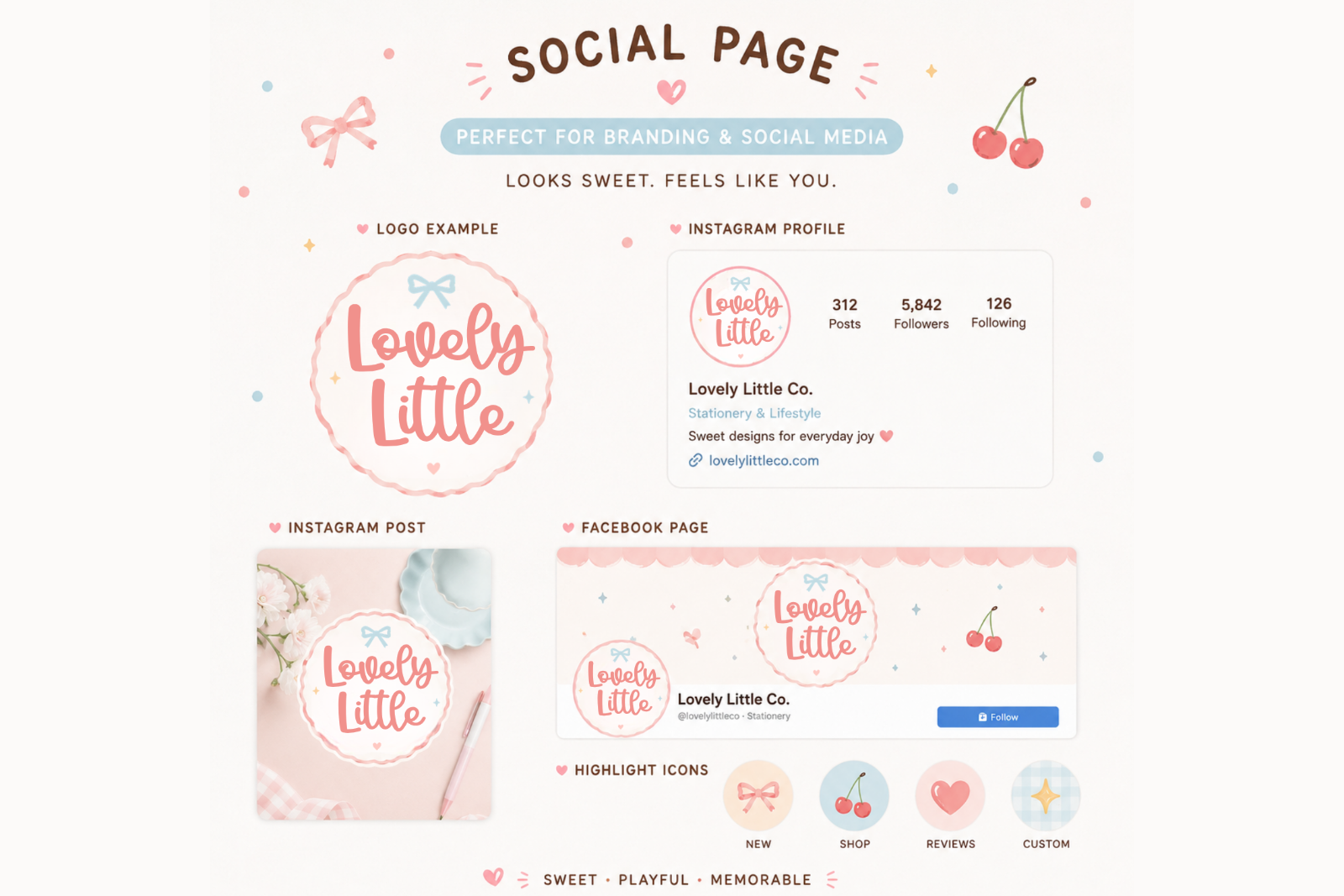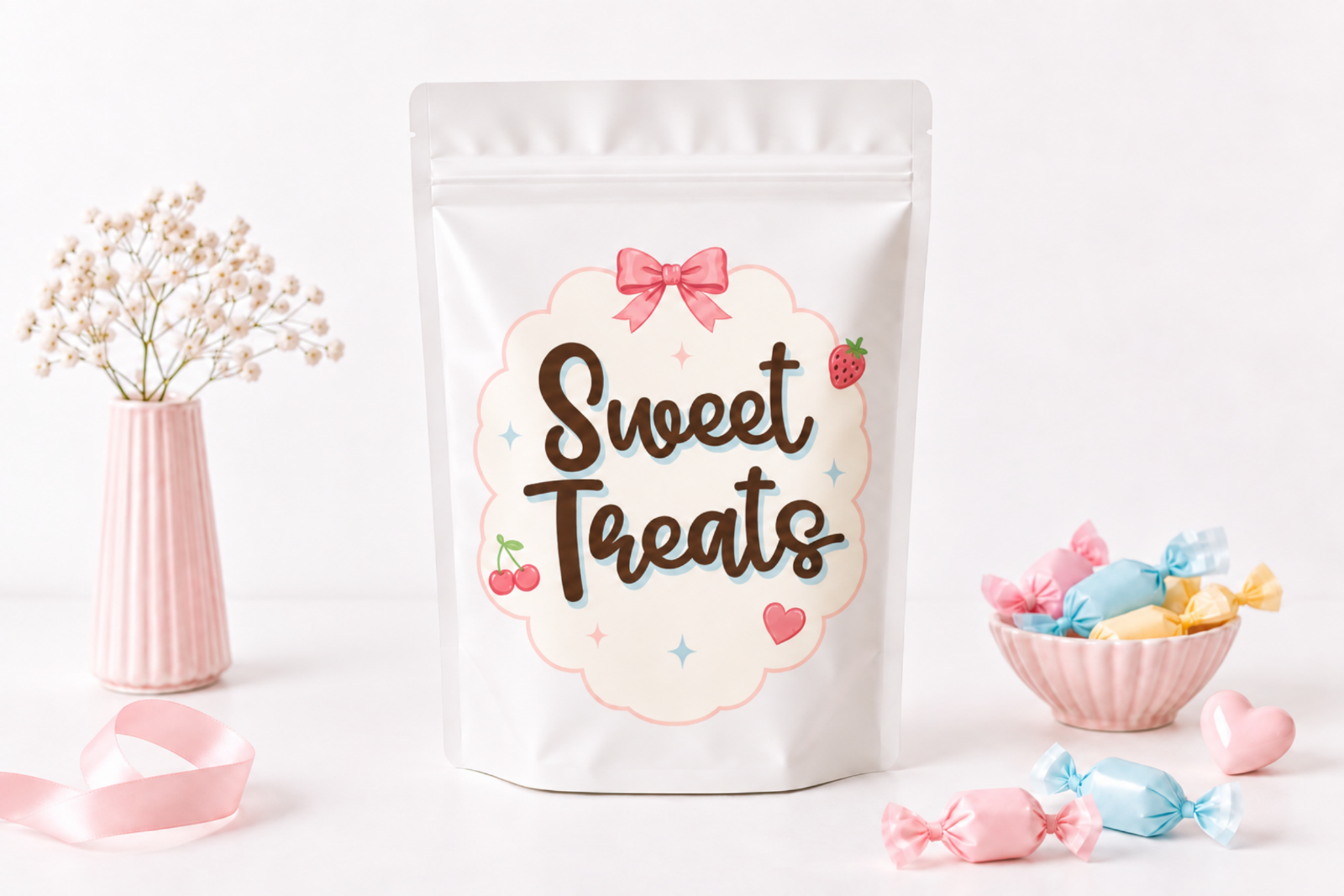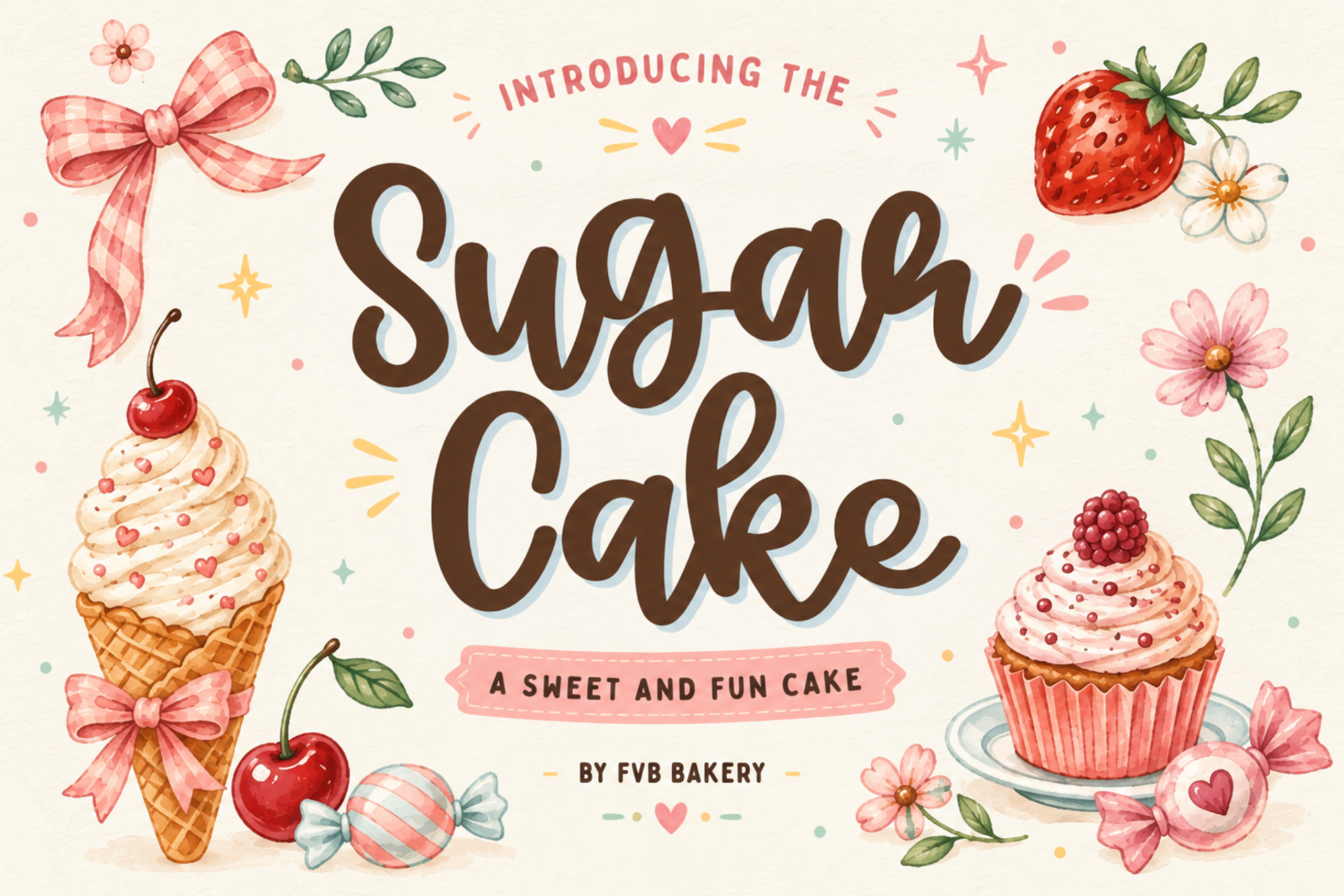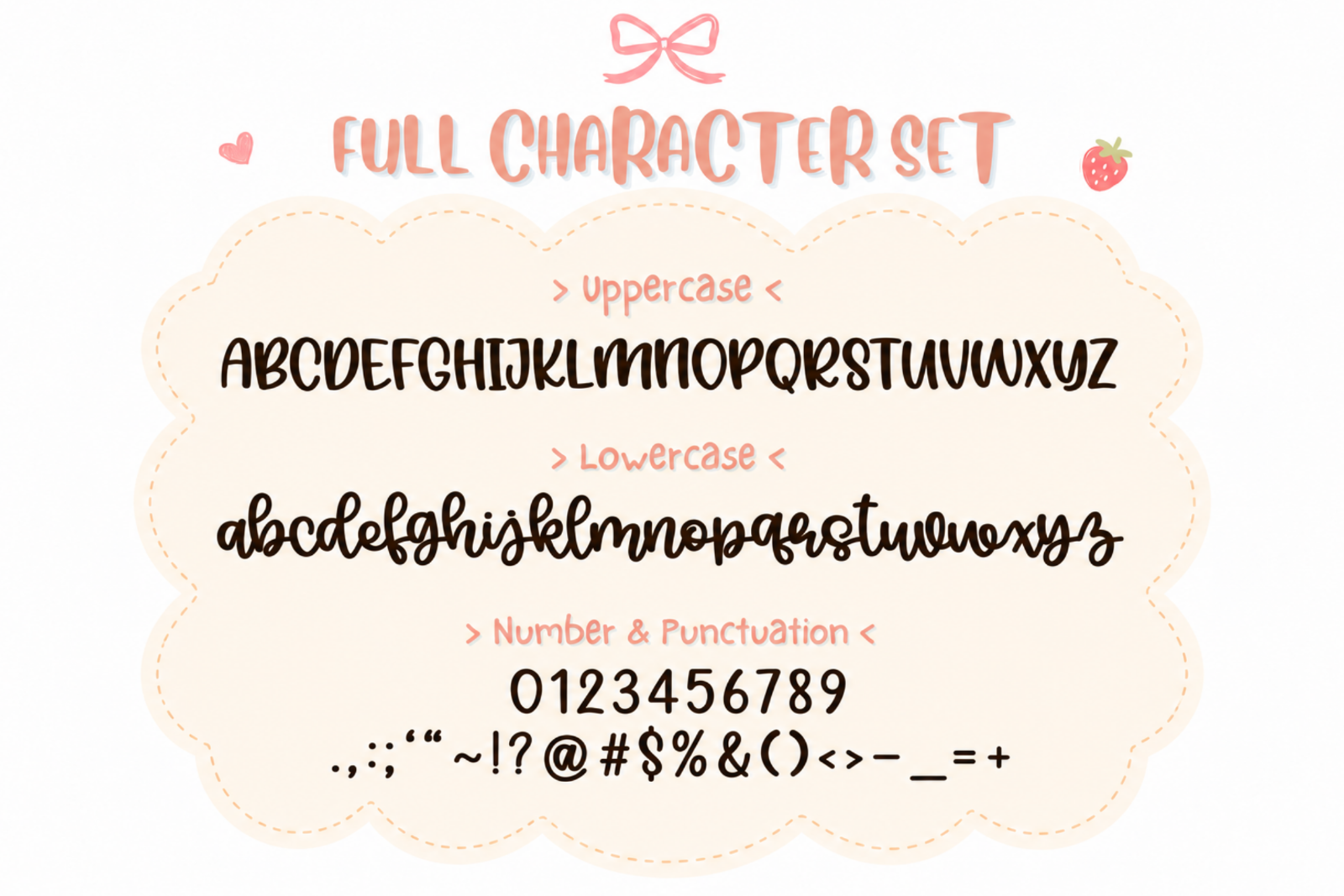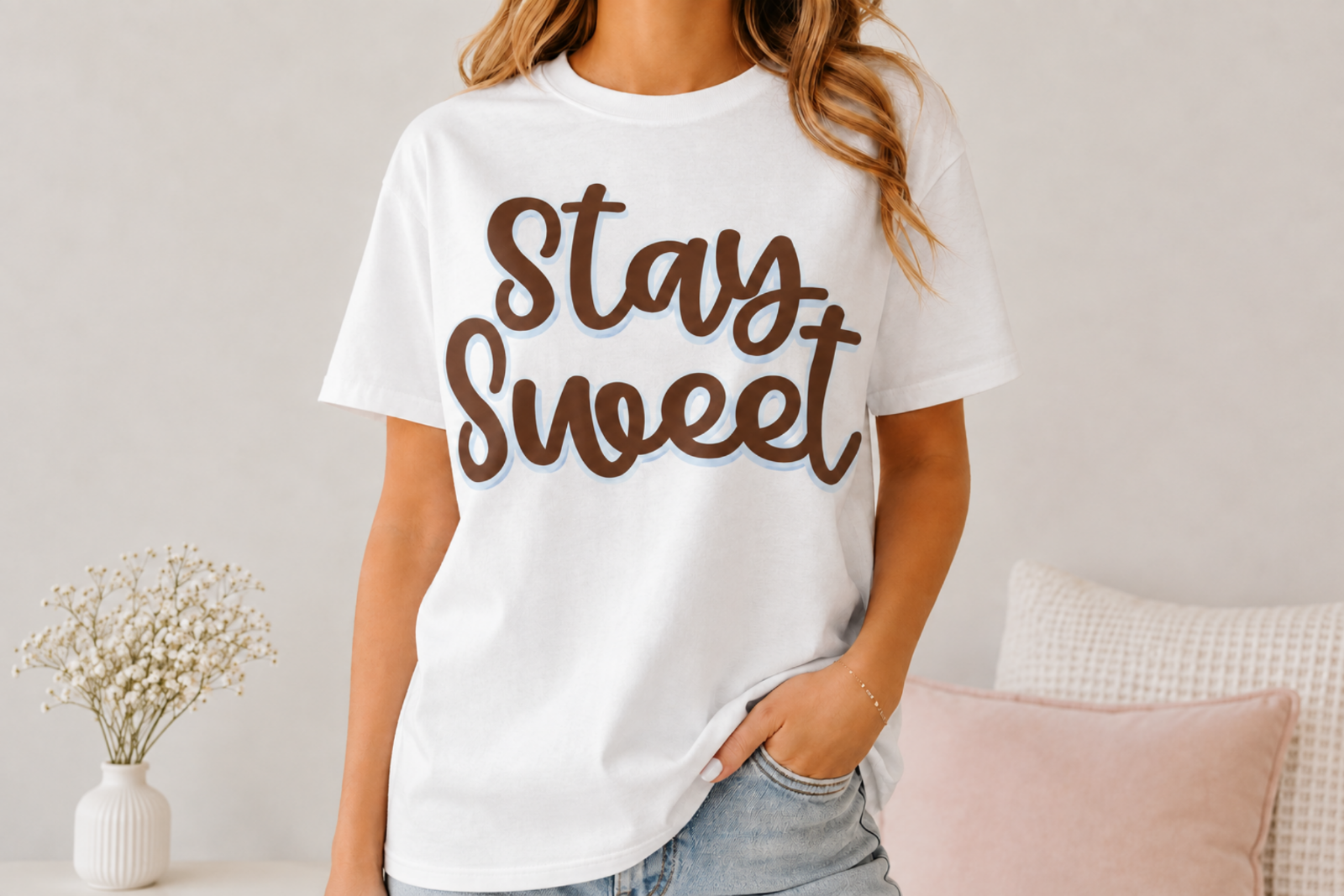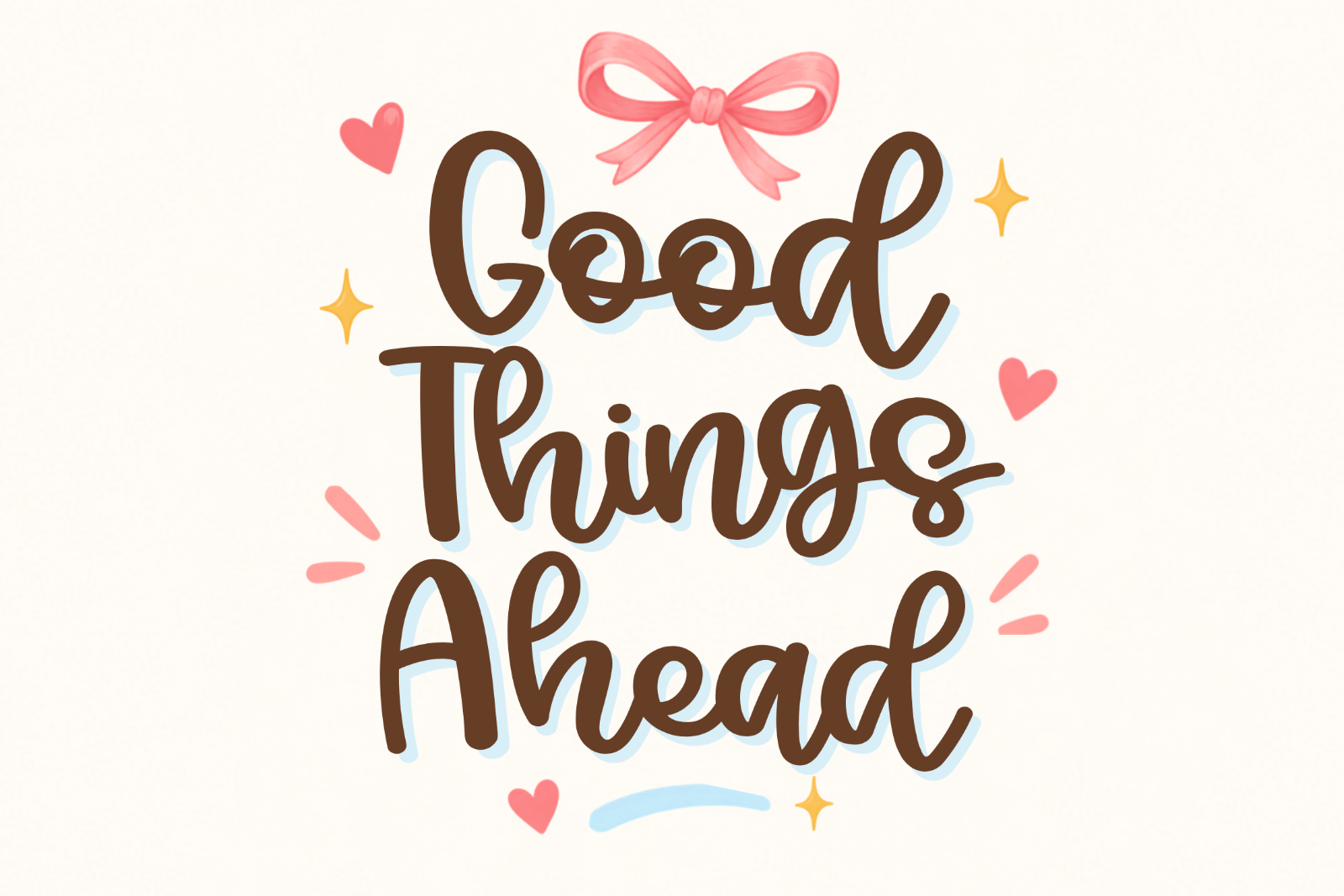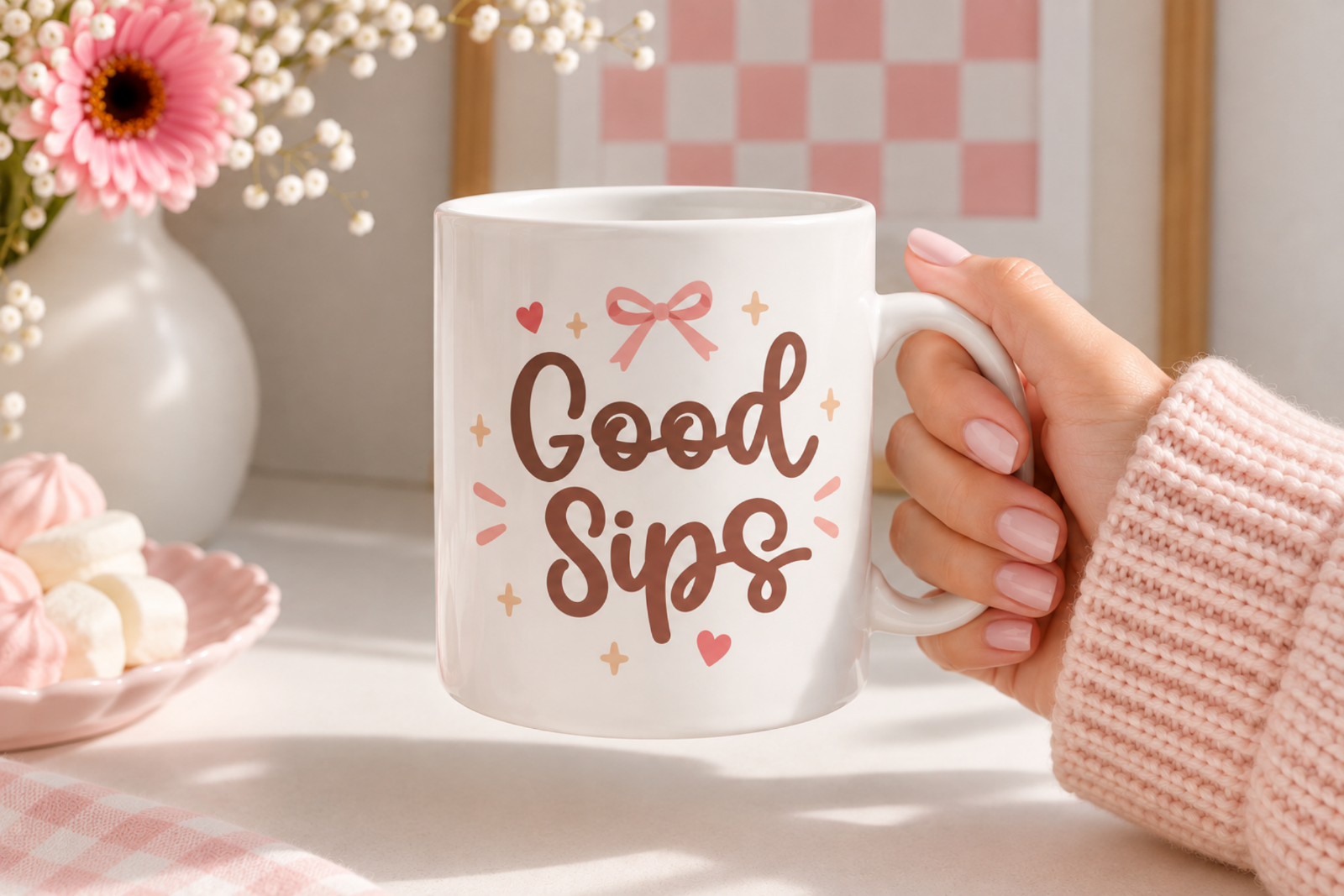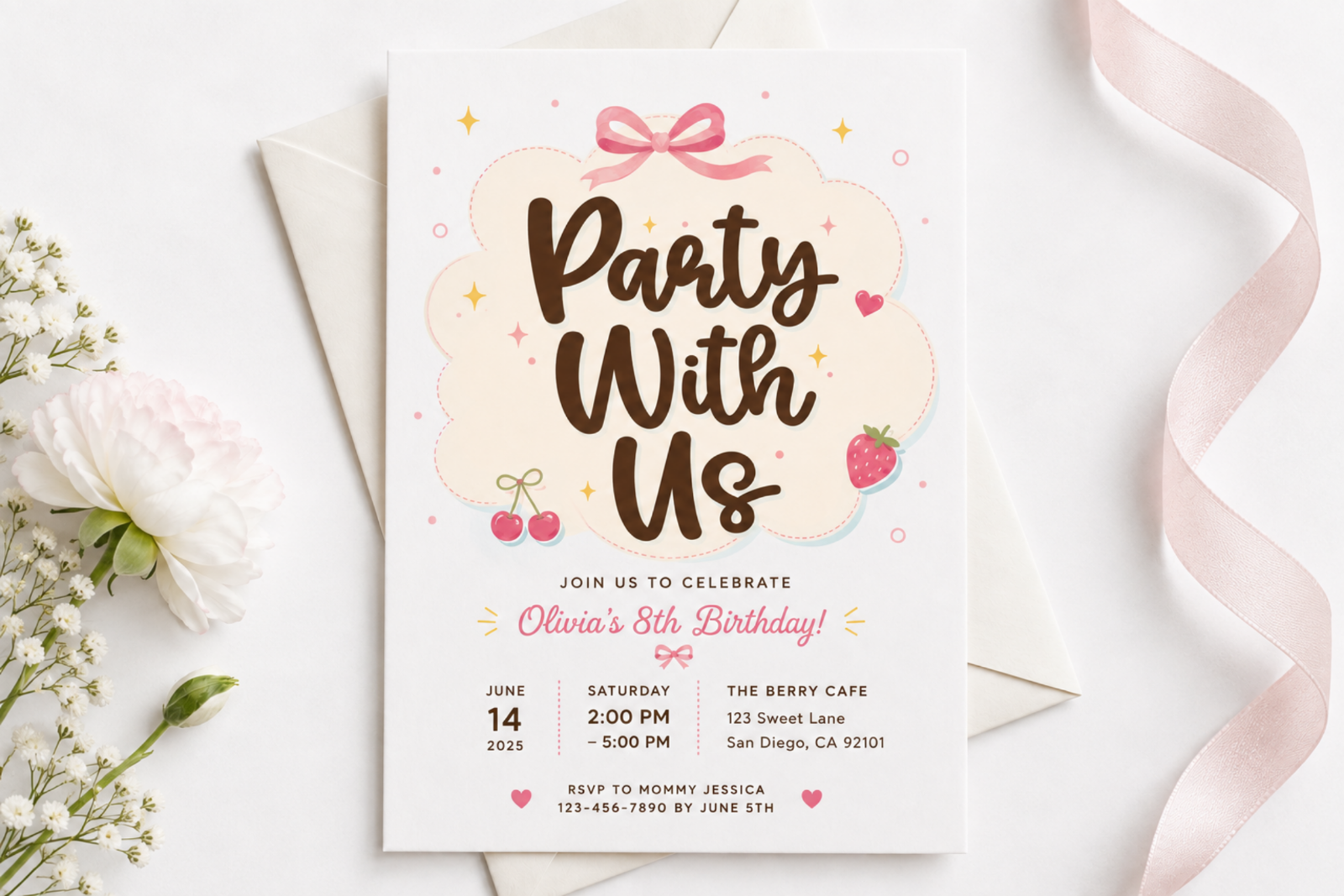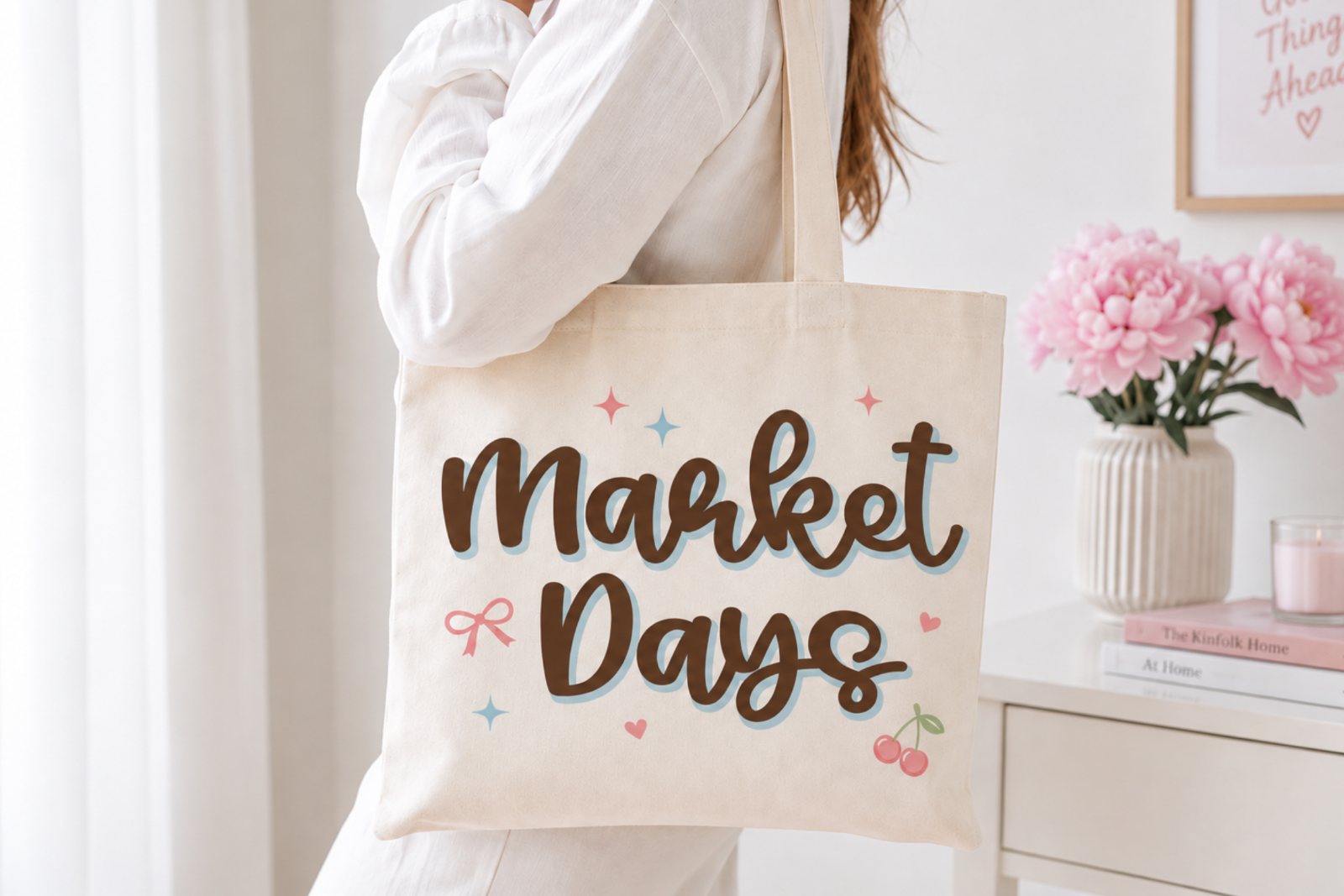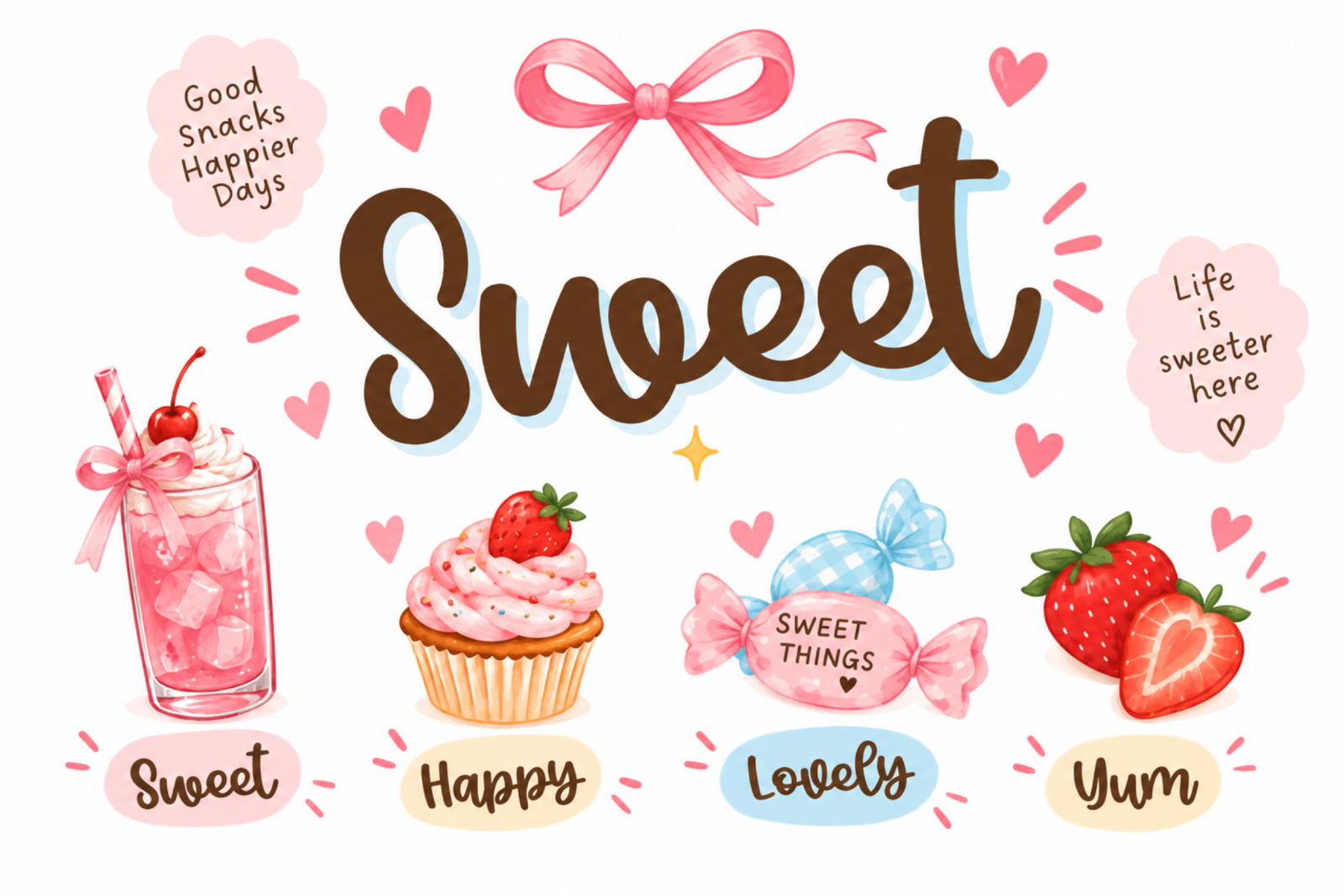
Sugar Vibe – Playful Bouncy Script Font
Meet Sugar Vibe, a sweet and playful script font with smooth curves, bouncy letterforms, and a cheerful handmade personality.
Designed to feel fun, friendly, and full of character, Sugar Vibe is perfect for creators who want their designs to feel cute, memorable, and effortlessly playful.
Its bold flowing shapes work beautifully as statement lettering, making it especially suitable for branding, packaging, merchandise, social media, invitations, and lifestyle products.
Perfect For
• Logo & Boutique Branding
• Candy, Bakery & Food Packaging
• Product Labels & Stickers
• T-Shirts & Apparel
• Tote Bags & Merchandise
• Mugs & Drinkware
• Social Media Graphics
• Instagram & Content Creation
• Invitations & Greeting Cards
• Quotes & Typography Posters
• Small Business Branding
• Kids & Playful Lifestyle Products
Font Features
• Uppercase A–Z
• Lowercase a–z
• Numbers 0–9
• Basic punctuation & symbols
• Smooth connected script style
• Bold, readable letterforms
• Bouncy handmade personality
The font includes Basic Latin characters for standard English, numbers, and basic punctuation.
Why You’ll Love Sugar Vibe
Sugar Vibe was created for projects that need a little extra sweetness without feeling overly childish.
Use it large for eye-catching phrases like Stay Sweet, Market Days, Good Sips, or Sweet Treats, or turn it into memorable logos and packaging for bakeries, boutiques, cafés, handmade businesses, and lifestyle brands.
Its rounded, flowing shapes make it especially effective on products such as shirts, tote bags, mugs, invitations, candy packaging, jam jars, stickers, and social graphics.
Create something sweet, playful, and unmistakably yours with Sugar Vibe.